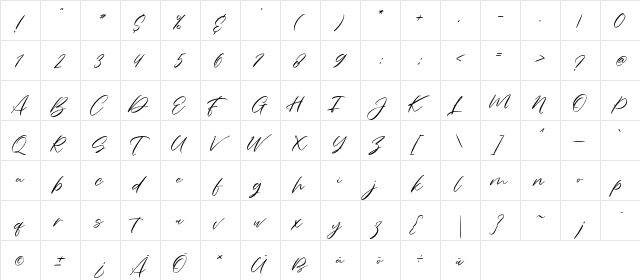
Charmelya Script Regular
Design Context for Charmelya Script Typeface
Charmelya Script brings a calligraphic fluidity to the page — its connecting strokes and expressive curves give it an unmistakably human quality.
Font Pairing: Combine Charmelya Script with a simple geometric sans for maximum contrast — the tension between flowing curves and clean structure is a classic typographic pairing.
Pro Tip: Use Charmelya Script for short runs of text — names, titles, or taglines. Extended body copy in script faces tires the eye quickly.